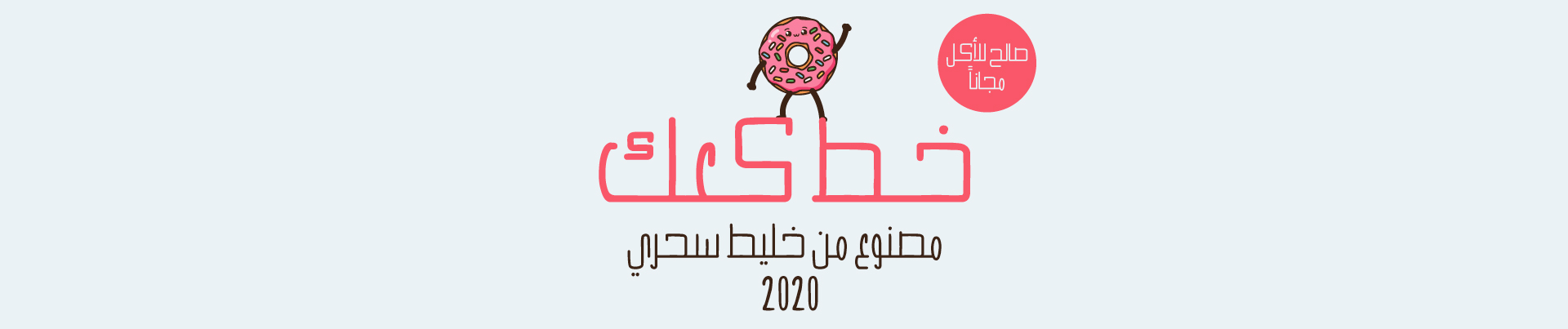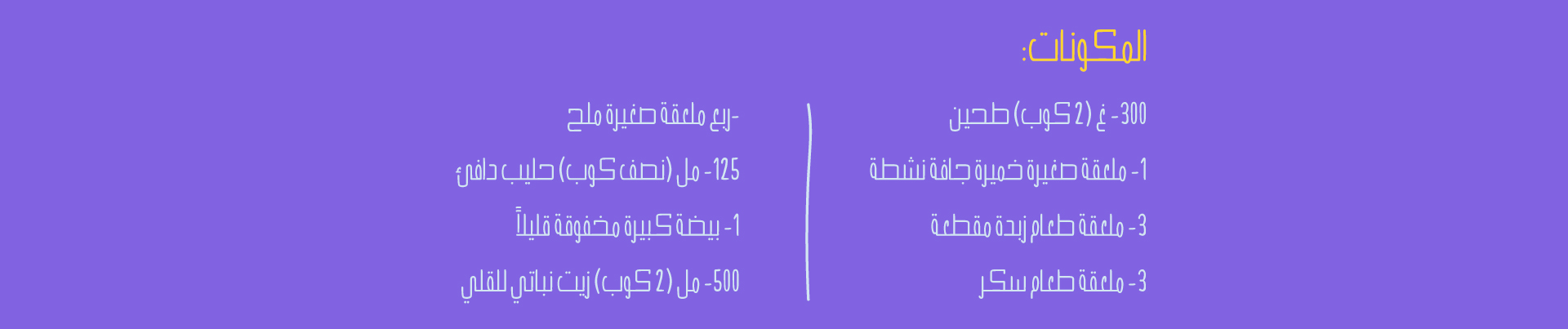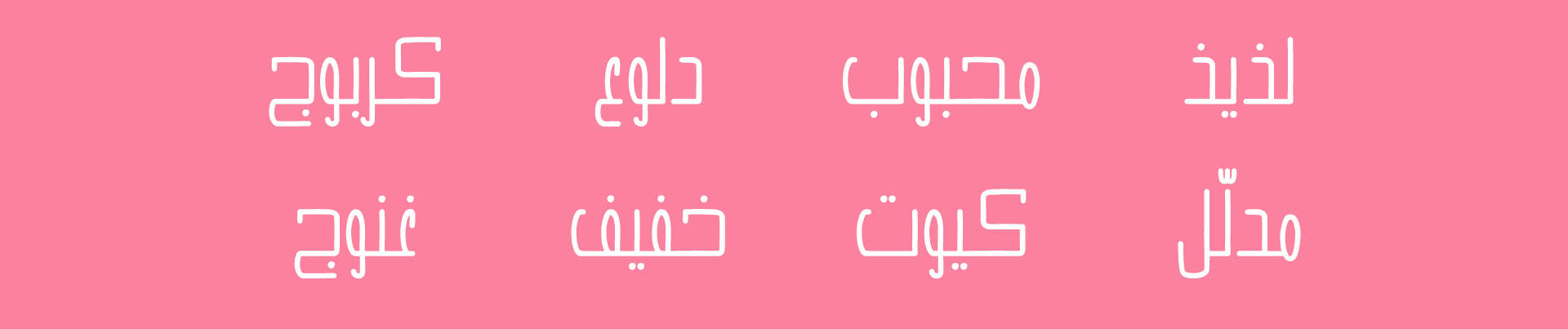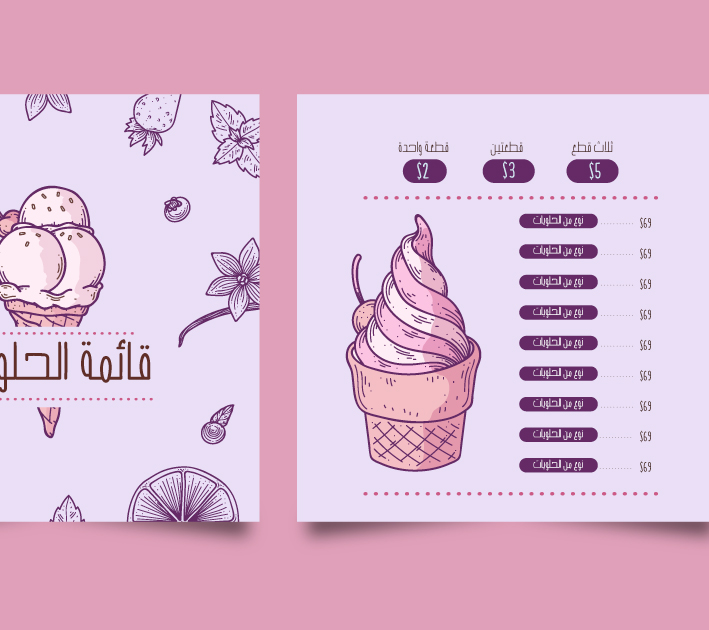
Kaak font is an Arabic font designed by matchmaking the Latin font “cookies and milk” which was designed by Philip Trautmann.
It is available in two weights “Light-Bold”
It supports the Arabic language
Suitable for headlines, comics, sweets packaging, social media posters
TSfonts Type Foundry
Tarek Alsawwa